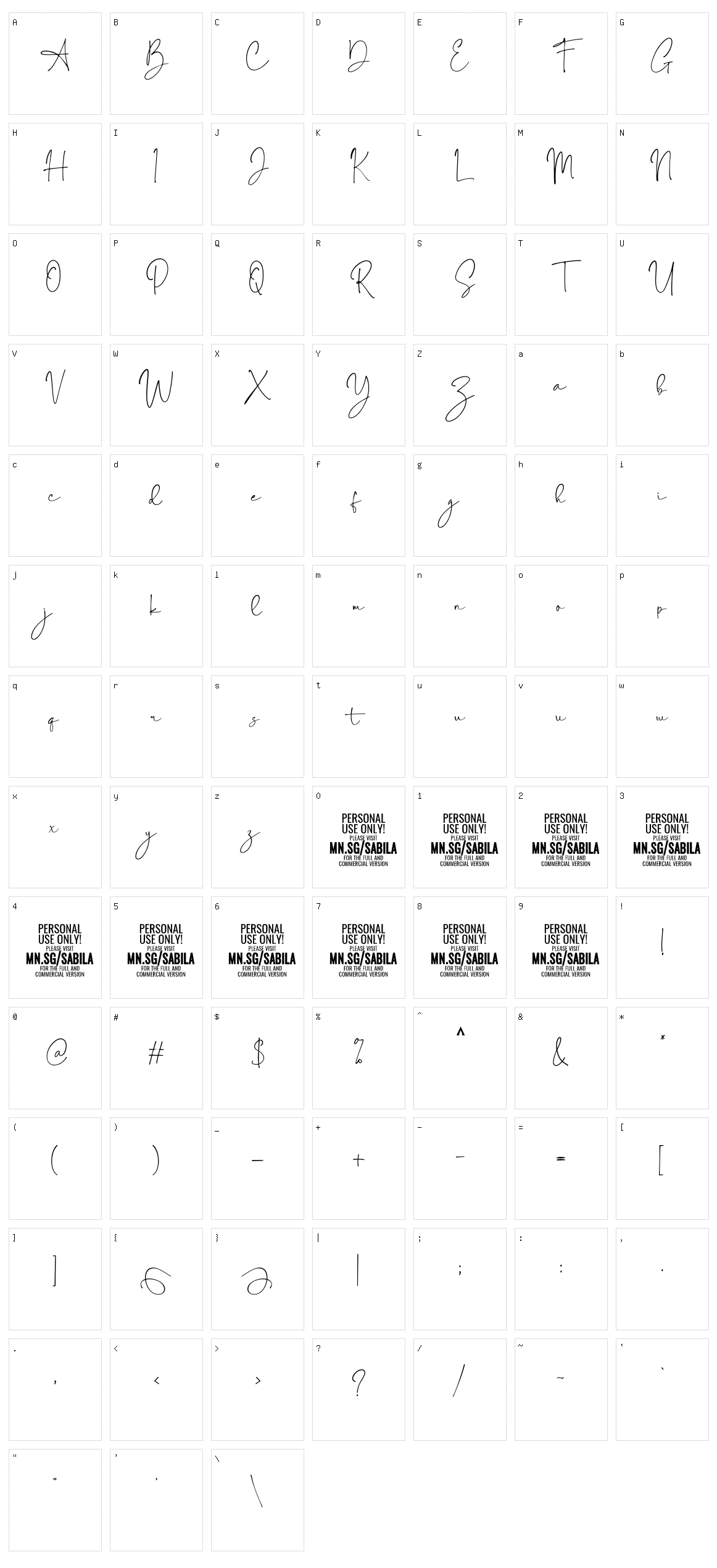
Sabila Renytha is a beautiful cursive script typeface.
Drawn and created in 2022, this chic hand lettering has a distinct style and a strong personality.
Use { } around any word to make decorations.
Example: {wonder}
Drawn and created in 2022, this fun hand lettering has a distinct style and a strong personality.
The font is built with advanced OpenType functionality and has a guaranteed top-notch quality, containing stylistic and contextual alternates, ligatures and more features; all to give you full control and customizability.
It has extensive lingual support, covering all Latin-based languages, from Northern Europe to South Africa, from America to South-East Asia.
It contains all characters and symbols you'll ever need, including all punctuation and numbers.